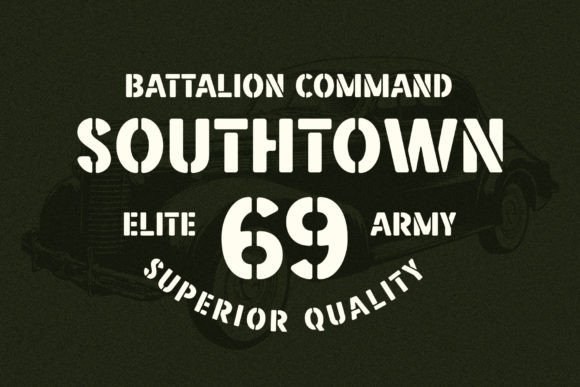
Straight Fighter Font
Straight Fighter is a stencil font that exudes strength, masculinity, and bravery. Inspired by classic war posters, military style, and the punk scene. With unique stencil cutting and letter shapes, this font features bold lettering that demands attention.
It comes equipped with special characters and multilingual support, making it a versatile choice for a variety of design projects. Straight Fighter is particularly suitable for display, headlines, posters, editorials, patches, logotypes, branding, movies, flyers, and short quotes.